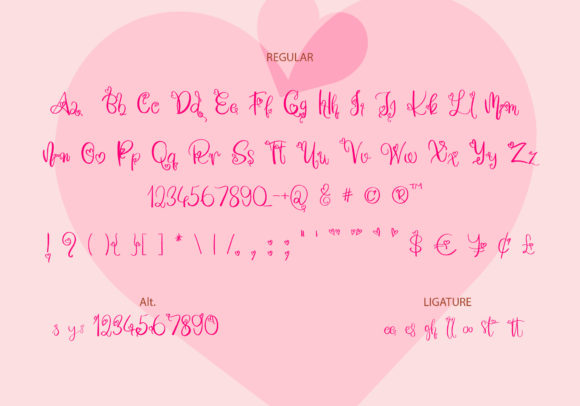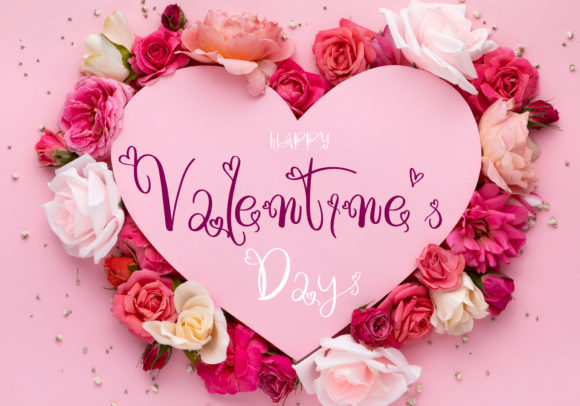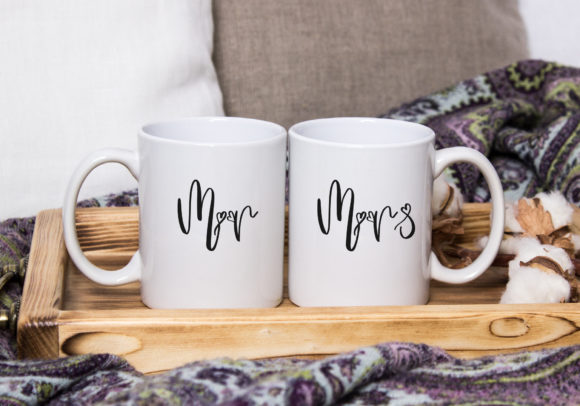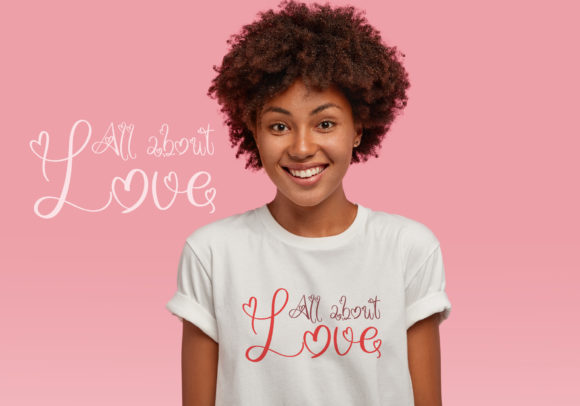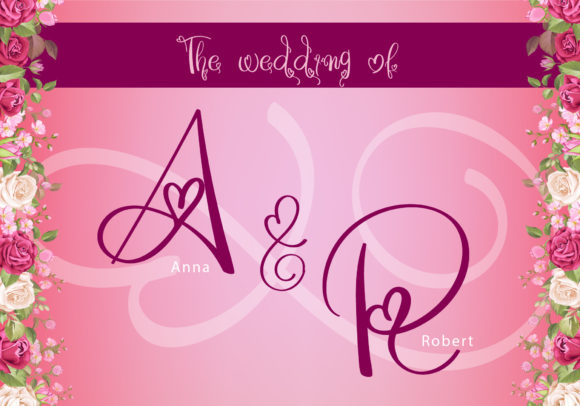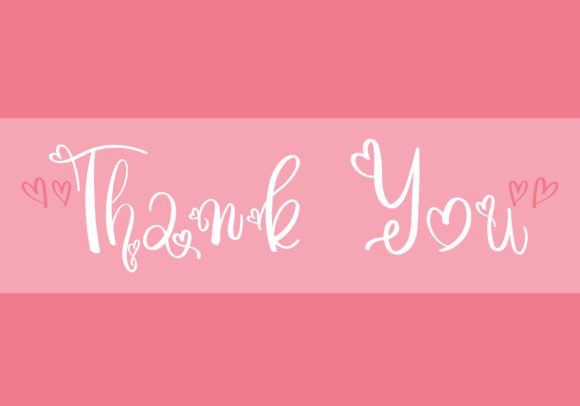
Adding a Touch of Romance with Heart Beat Font
Have you ever been browsing through a craft store, surrounded by an array of colorful papers and ribbons, and suddenly felt the urge to create something special for a loved one? For many of us, this moment sparks a wave of inspiration and creativity, leading us to search for the perfect font to bring our vision to life.
This is where the Heart Beat Font comes in – a dreamy and romantic handwritten font featuring lovely heart ornaments. Ideal for Valentine theme greeting cards and any crafting project that requires a sweet touch, this font is a must-have for designers looking to add a personal and emotional touch to their designs.
With its beautiful, flowing script and charming heart details, the Heart Beat Font is a valuable addition to any designer’s toolkit, allowing them to create unique and memorable designs that speak directly to the heart.
Key Features of Heart Beat Font
- Font Family: Heart Beat Font is a unique, hand-drawn font family with a wide range of styles, from casual to formal.
- Unique Characteristics: Features a distinctive, hand-drawn aesthetic with irregular strokes and subtle texture, adding a touch of warmth and personality to any design.
Heart Beat Font Review
Overall, I’m quite impressed with the Heart Beat Font. It’s a unique and energetic design that’s sure to capture attention. Here are some of its standout features:
- ✨ The font’s playful and dynamic feel is perfect for digital products, such as apps, games, or social media platforms.
- ✨ The font’s versatility allows it to work well in a variety of contexts, from headlines to body text.
- ✨ The font’s irregularities and imperfections give it a hand-drawn feel, which can add a touch of personality to your design.
- ⚠️ The font may be difficult to read in smaller sizes or in certain contexts, such as body text in print materials.
- ⚠️ The font’s irregularities can also make it challenging to pair with other fonts, so it’s best to use it as a standalone font.
- ⚠️ The font may not be suitable for formal or professional applications, as it has a more playful and casual feel.
Overall, I think the Heart Beat Font is a great addition to any designer’s toolkit. While it may have some limitations, its unique energy and versatility make it a valuable resource for designers looking to add some personality to their work.
The Heart Beat font is ideal for:
- Creating energetic and playful designs
- Designing social media graphics and advertisements
- Adding a touch of whimsy to presentations and documents